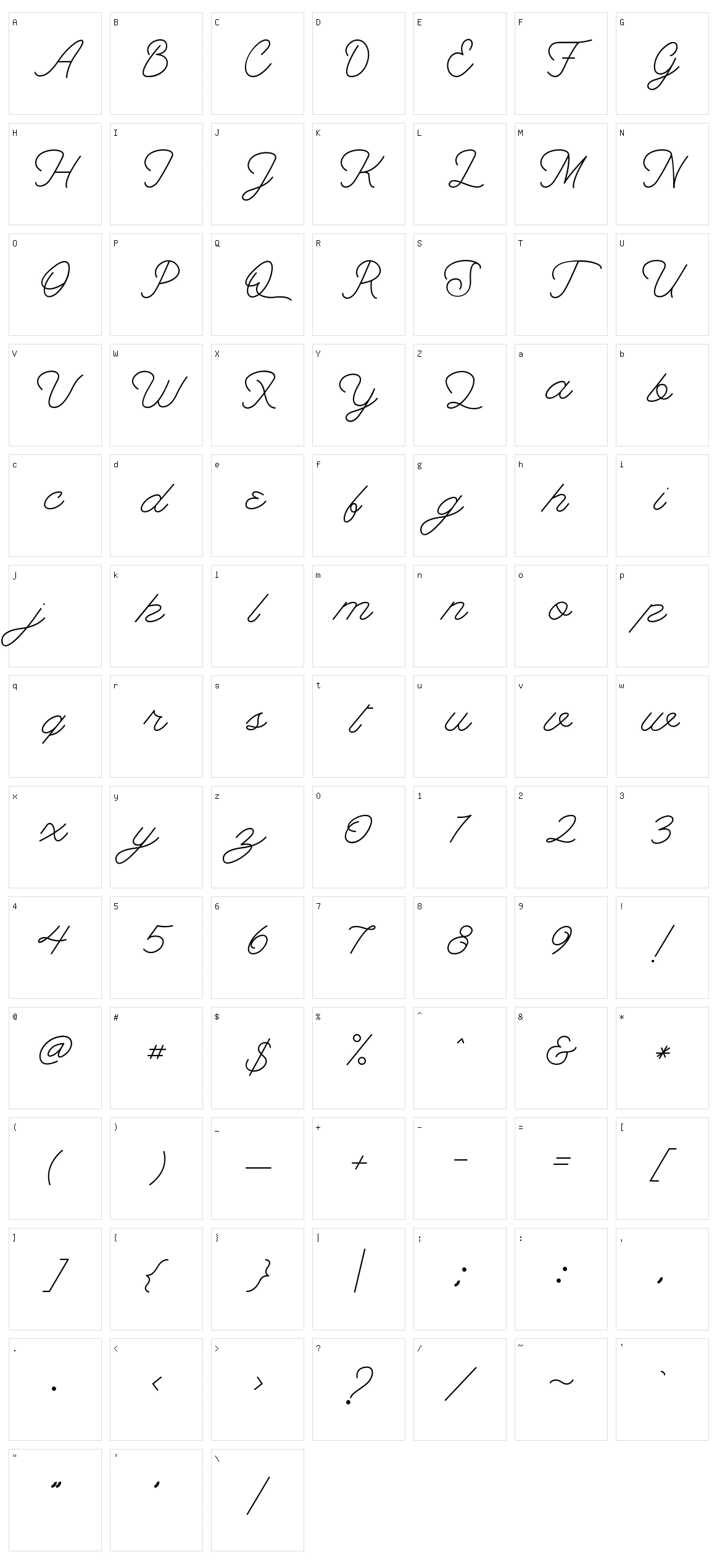
The free font Layyina is carefully designed by New Sanctorum, showcasing a thoughtful balance of creativity and usability and falls under the Script font style. When you download the ZIP file, it contains only 14.36 KB of font files, making it lightweight and quick to download. Please review the license details below to understand permitted usage and distribution rights. If license information is not available, we recommend using this font for personal projects only or contacting the author directly for commercial usage permissions.